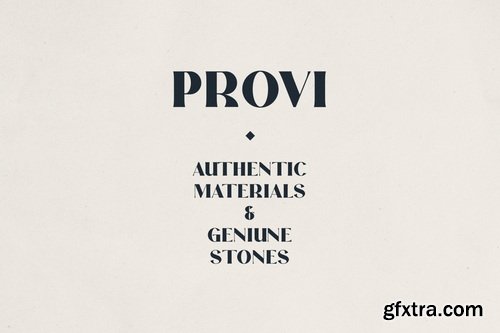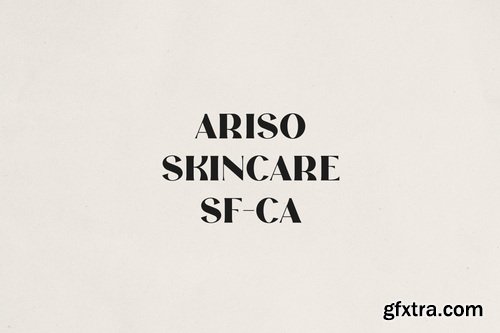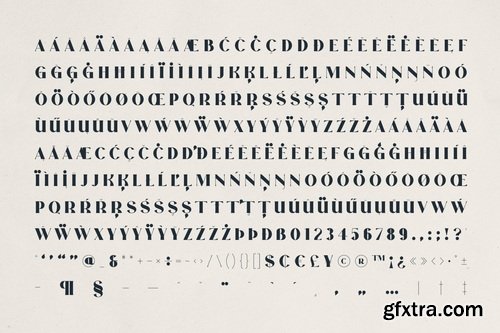
CreativeMarket - Veloura Serif Font Elegant Type
- Introducing Veloura, a luxurious serif typeface crafted for brands that value sophistication, expression, and creative clarity. With high contrast strokes and distinctive cuts, Veloura blends modern editorial elegance with vintage flair—making it ideal for beauty brands, fashion labels, wellness studios, and art-inspired projects.
Designed for impact, Veloura features: